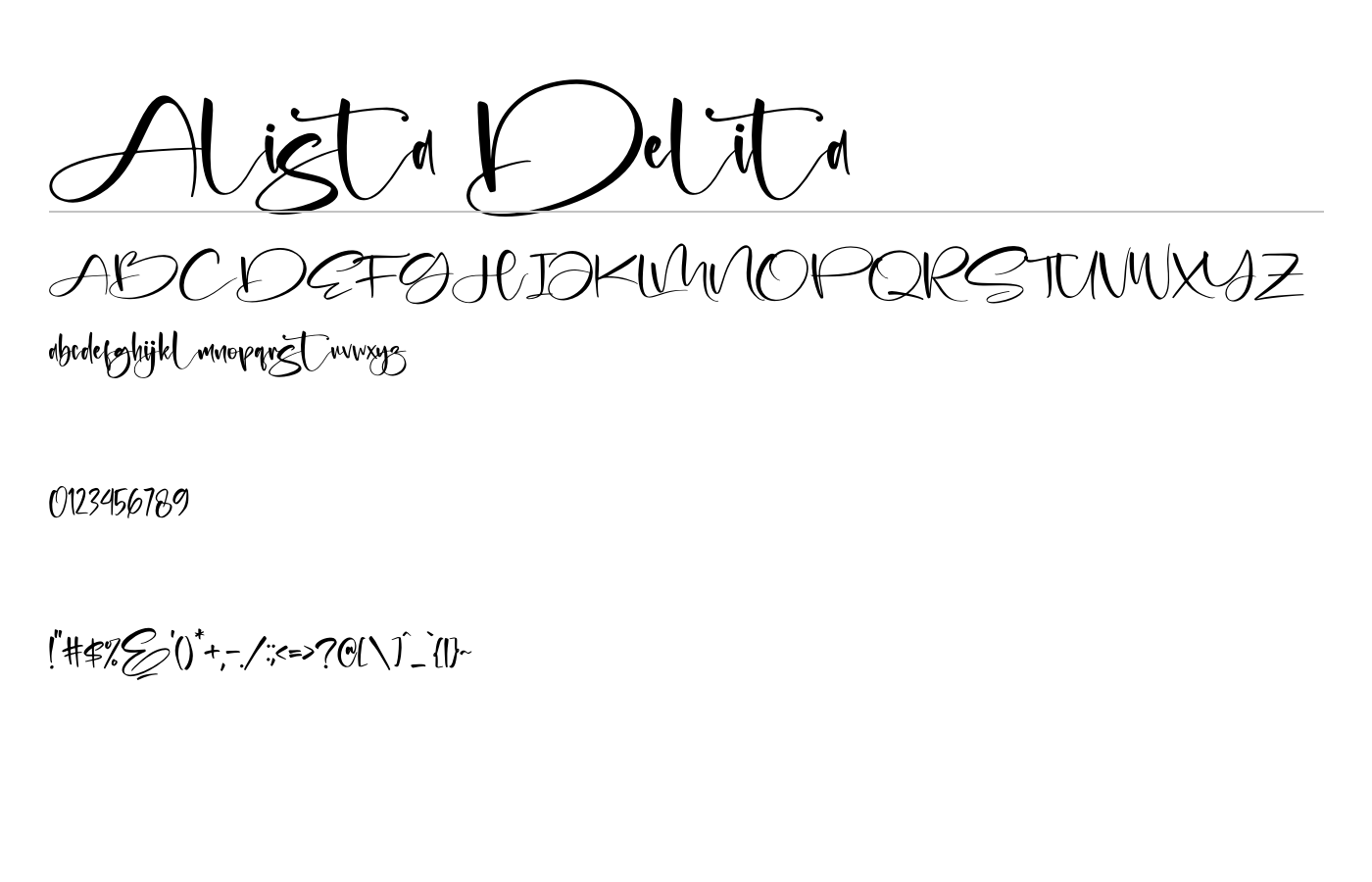
Alista Delita is a playful, elegant script font featuring thin, flowing strokes with a casual handwritten feel. Its tall, narrow letterforms and distinctive flourishes make it ideal for creative branding, invitations, and decorative headlines where a personal, artistic touch is desired. This font works well in designs seeking charm and sophistication without rigidity.
Alista Delita Font
About Alista Delita Font